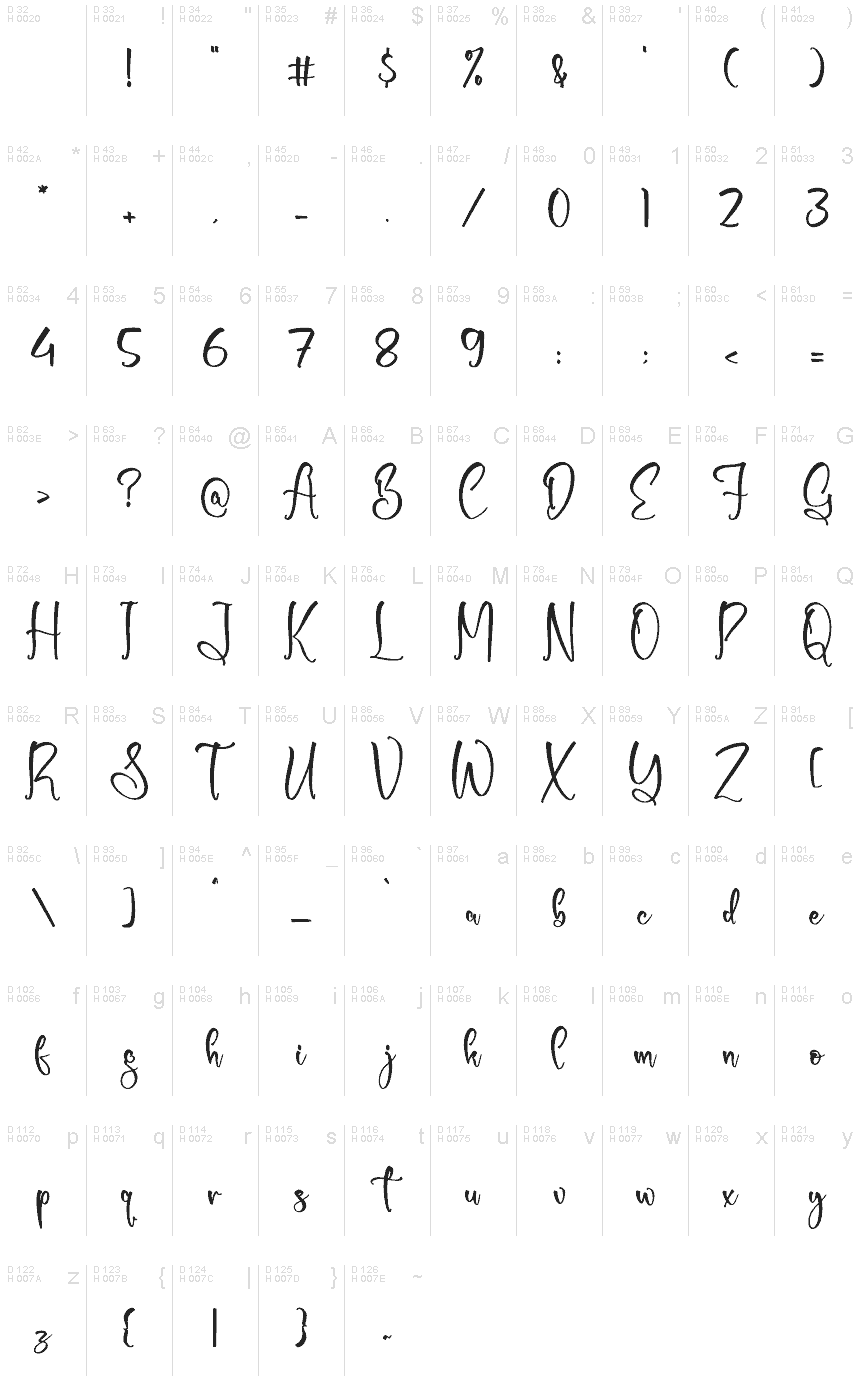
Shirlley Gilberta
Shirlley Gilberta font by Letterena Studios is a free handwritten font with an expressive and elegant design that’s intended to mesmerize. The charming work of art, created for a wide range of projects, displays a smooth flow with each letter. Its simplicity was deliberately constructed, putting both readers and designers under its spell.
Invitation cards are instantly made more enjoyable when the details are presented with Shirlley Gilberta font. It can be used for movie posters, branding designs for clothing items or cosmetics products, greeting cards, brochures, vintage-themed websites, a clothing line name tag concept where the item name is featured in all its glory.